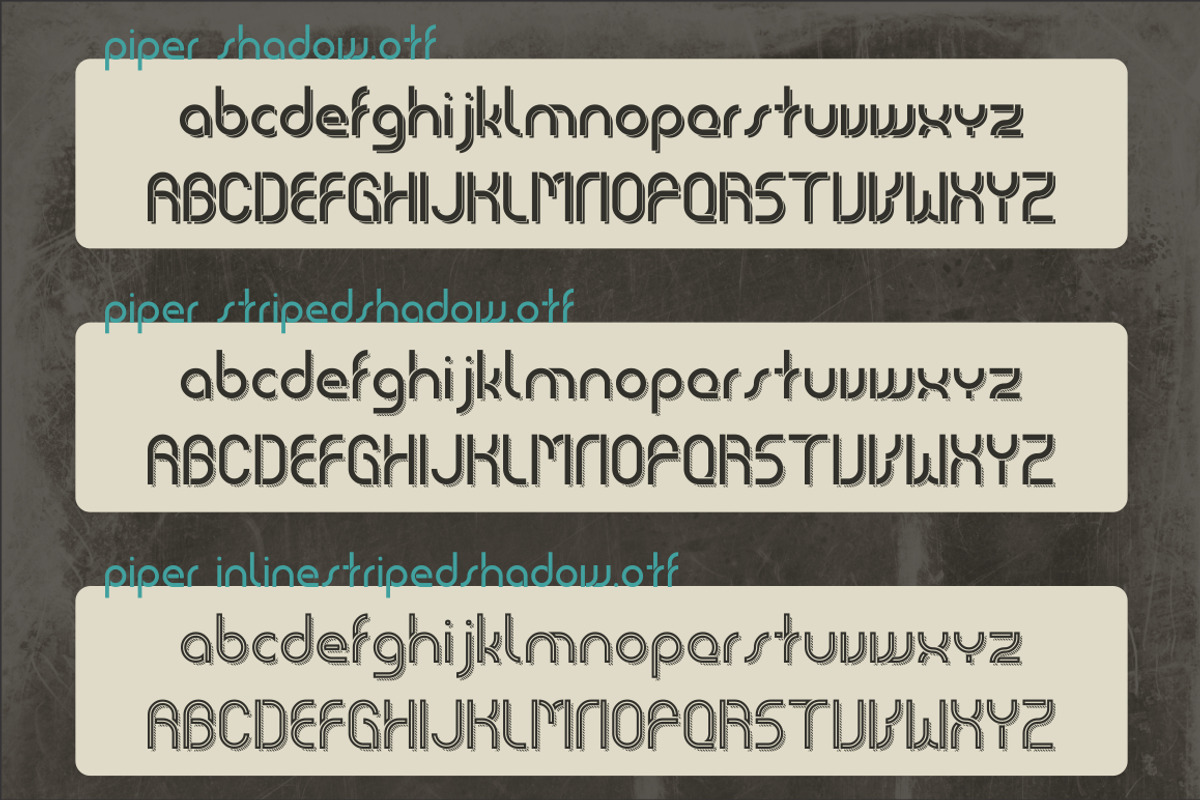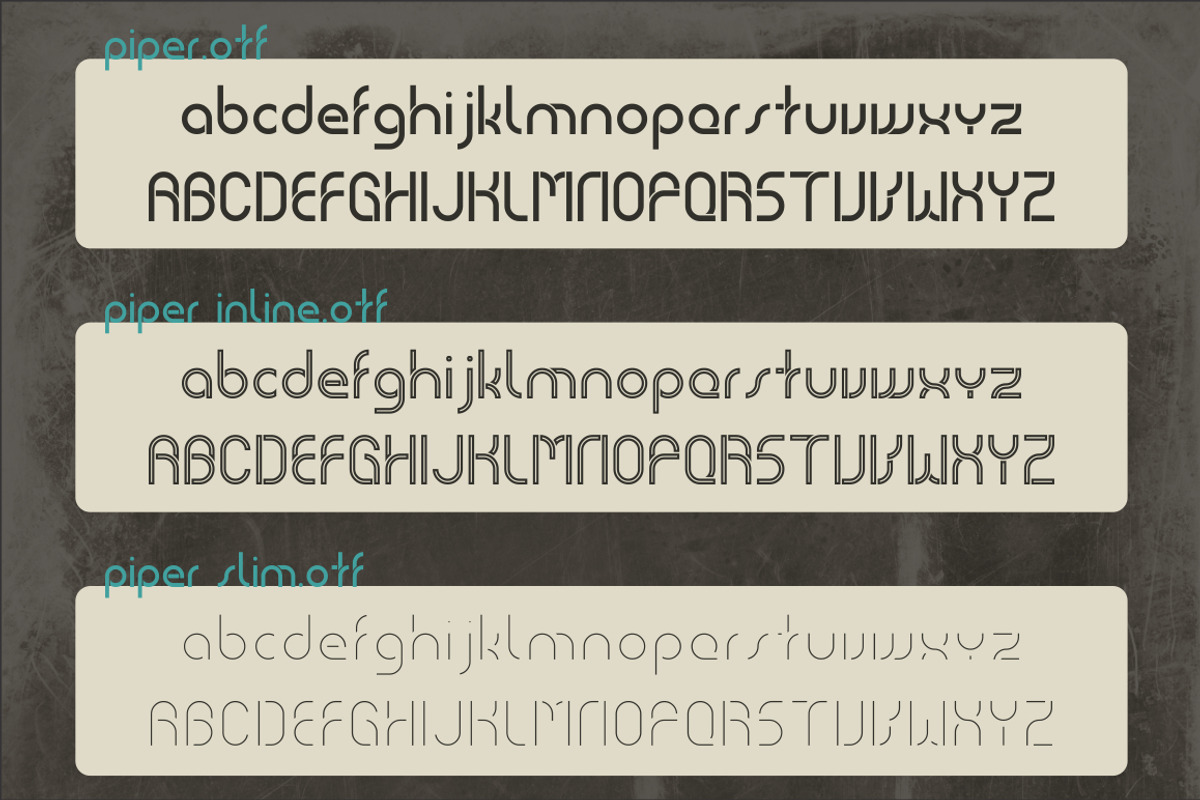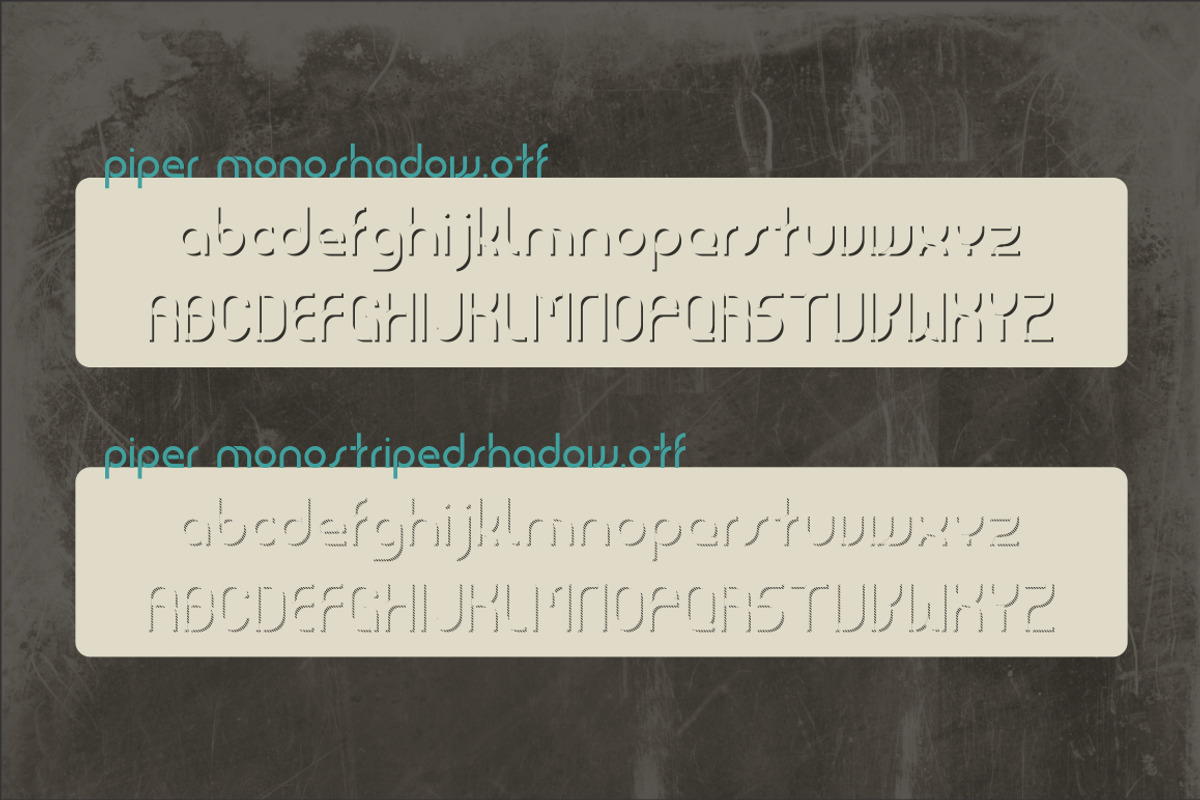
Piper Typeface
Piper Typeface by Monogram is a font selected for branding, posters, packaging, typography.
- It contains eight files (each incuding 320 glyphs), all of them perfectly overlaying, for a variety of results, depending on your needs.
Why Piper Typeface is worth a look
Piper Typeface by Monogram fits naturally into Branding, posters, packaging, typography.